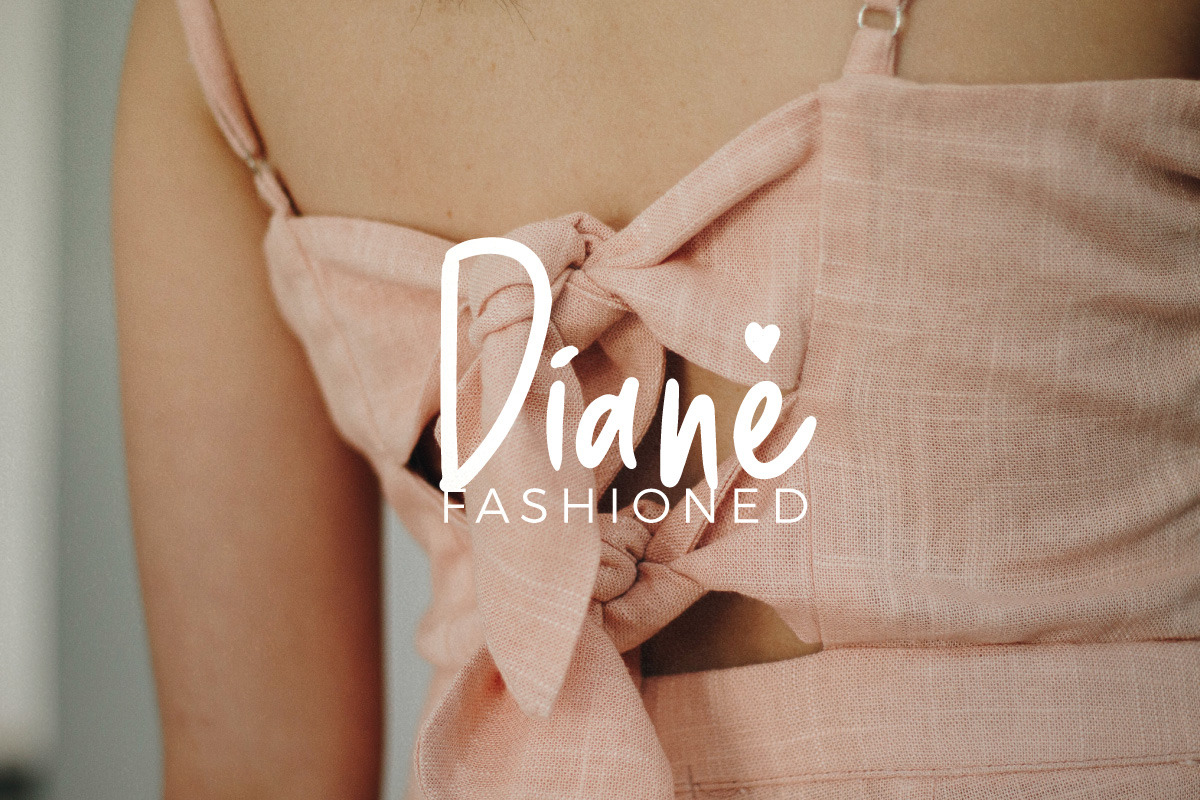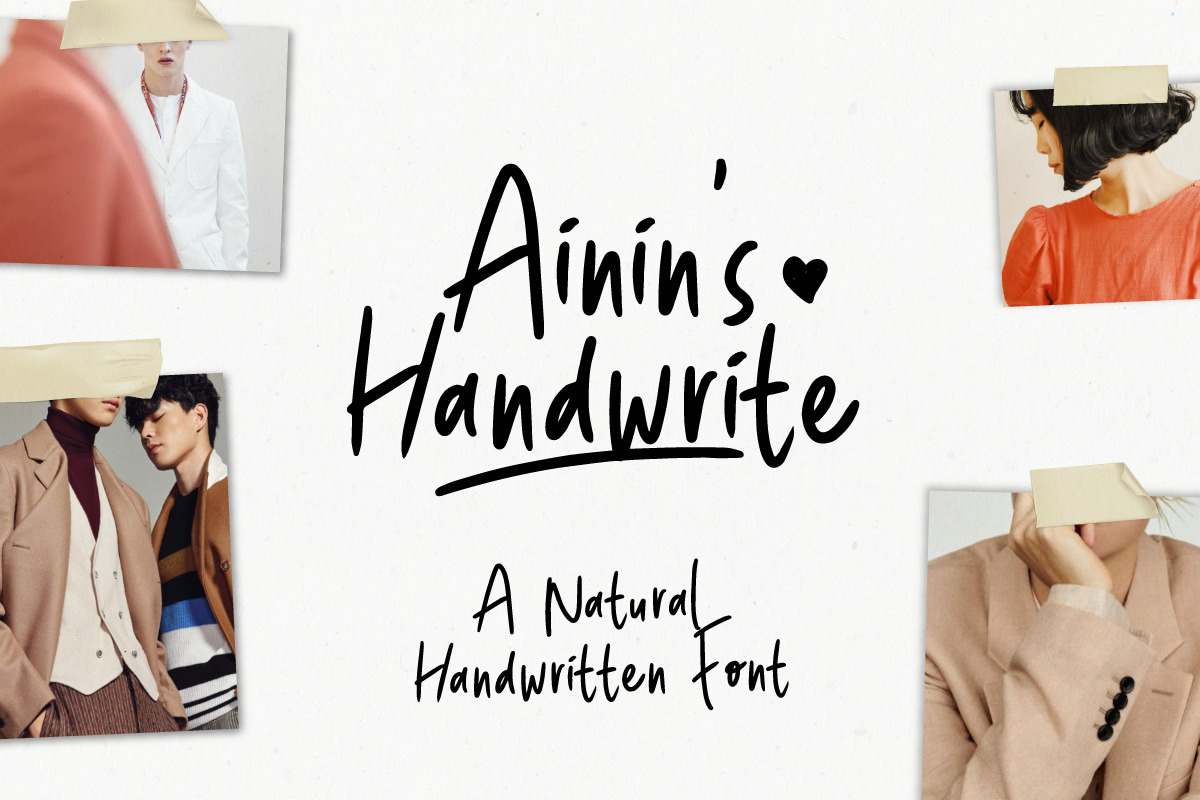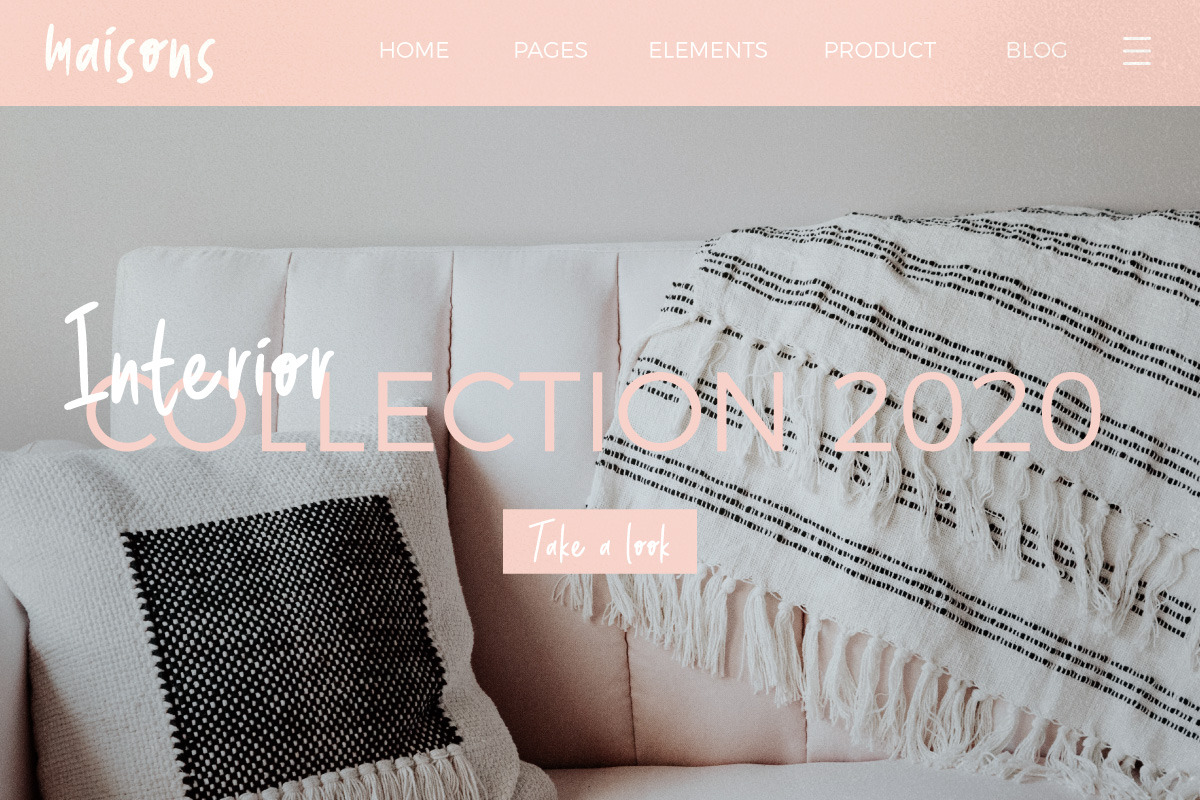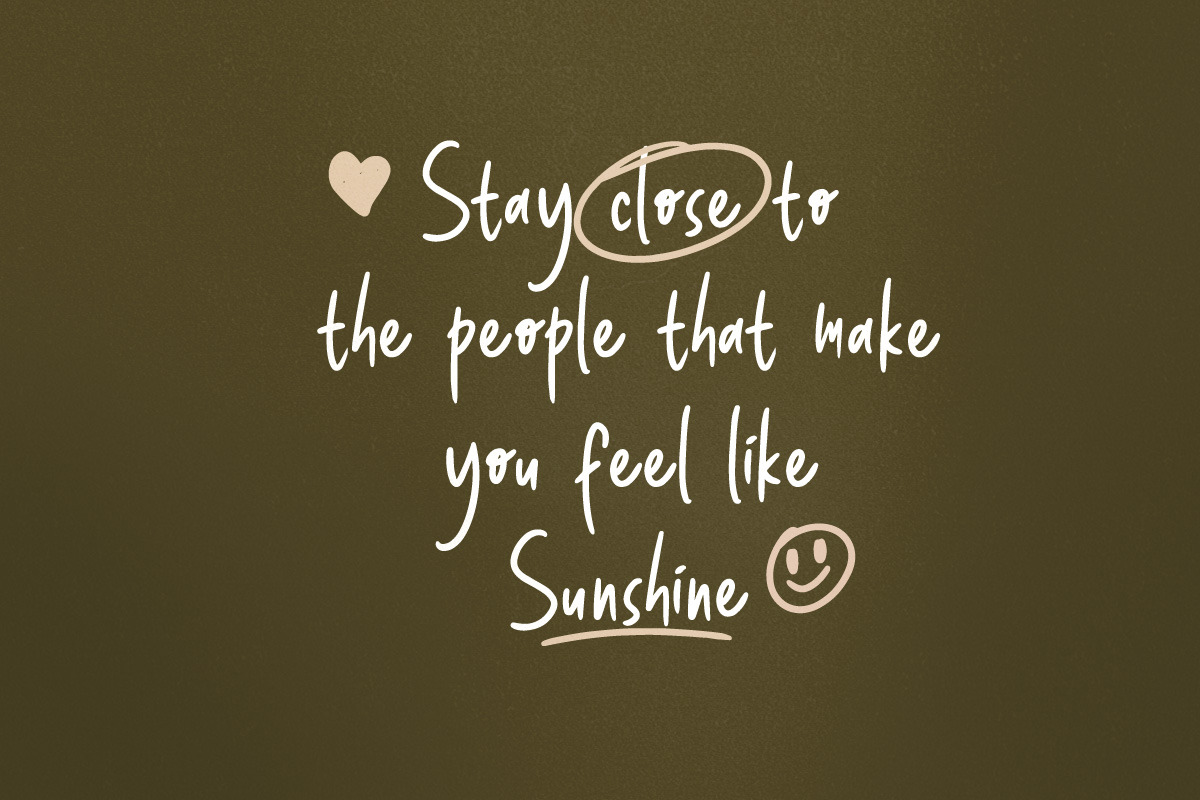
Ainin - Natural Handwrite Font
Ainin's Handwrite Font | Playfull Fun Typeface with a freehand style, So beautiful on invitation like greeting cards, branding materials, business cards, quotes, posters, and more!
- Hundred of glyphs
- Alternates and Ligatures
- Punctional
- Fonts include Multilingual Support